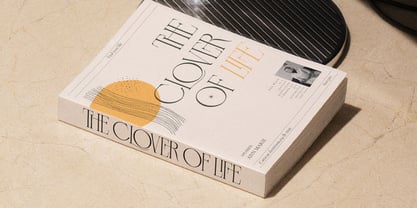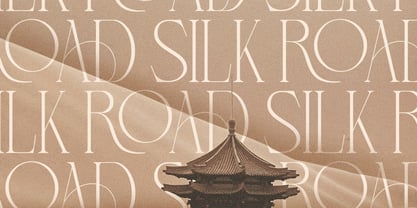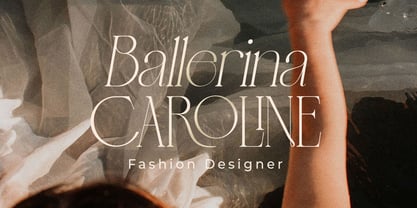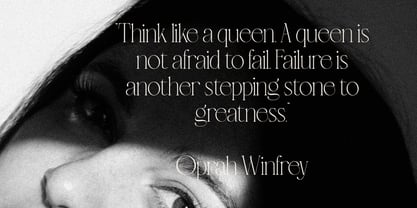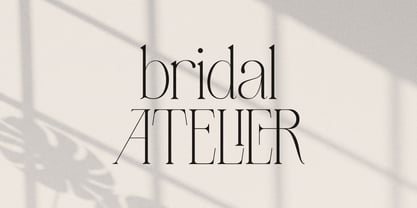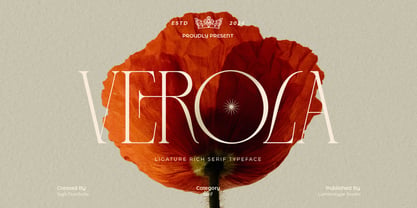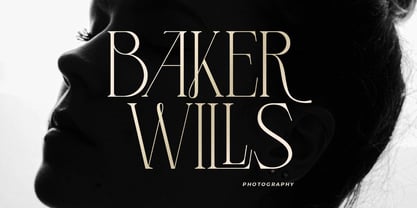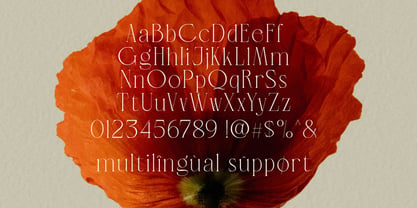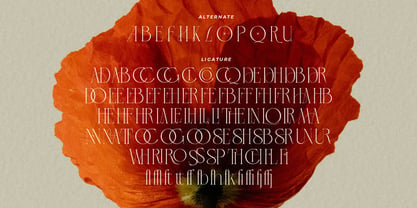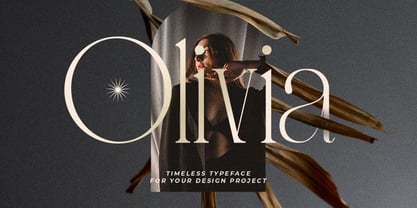
LT Verola
by Sigit Nurcholis
The LT Verola Font Family was designed by Sigit Nurcholis and published by Sigit Nurcholis. LT Verola contains 1 styles. More about this family
Elevate your design narrative with Verola, a rich serif ligature typeface that seamlessly blends classic editorial charm with modern luxury. Designed with high-contrast strokes and gracefully curbed serifs, Verola exudes a timeless sophistication that commands attention without screaming. Its true power lies in its extensive collection of ligatures, which naturally weave characters together to create bespoke, hand-lettered aesthetics instantly. Verola is not just a font; it is a visual tool meant to turn words into art. Whether you are crafting a high-end fashion spread, designing a minimalist skincare brand, or laying out a captivating book cover, Verola adds a layer of “quiet luxury” to your work. The balance between its sharp serifs and fluid connections makes it incredibly versatile—authoritative enough for headlines yet graceful enough for pull quotes. Give your projects the mastermind touch they deserve with a typeface that speaks the language of elegance fluently. Best Used In: Editorial & Magazine Layouts Luxury Branding & Logos Fashion Photography Overlays Wedding Invitations & Stationery Book Covers Packaging Design (Beauty/Cosmetics) Social Media Quotes Features : Character Set: Includes a full set of Uppercase and Lowercase Numerals & Punctuation Works on PC & MAC Simple Instalation Multilingual Support PUA Encoding What you get : LT Verola Regular font
Designers: Sigit Nurcholis
Foundry: Sigit Nurcholis